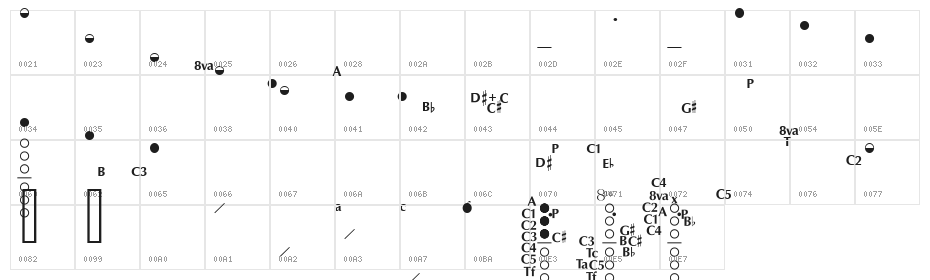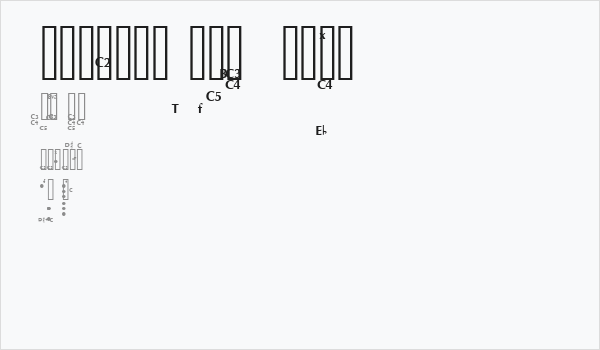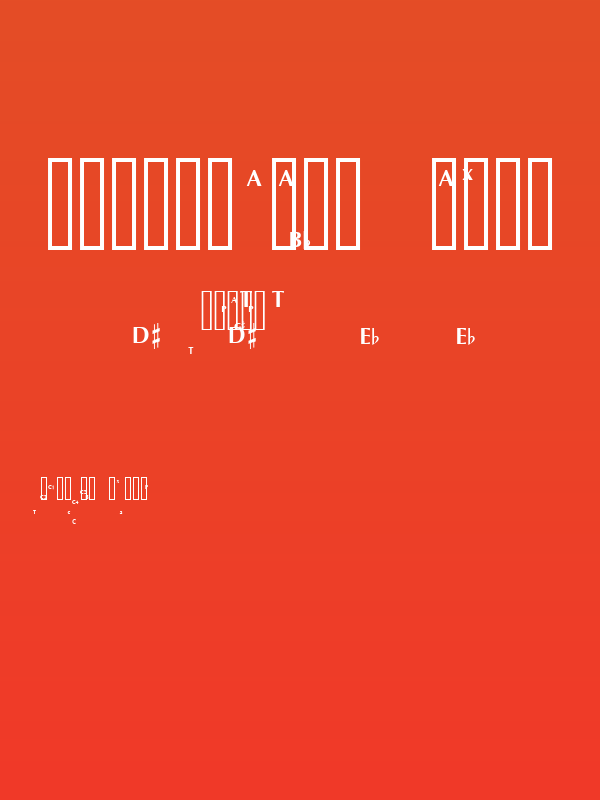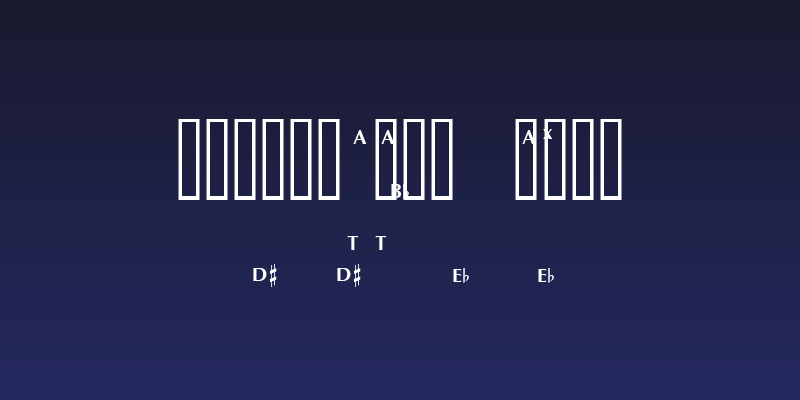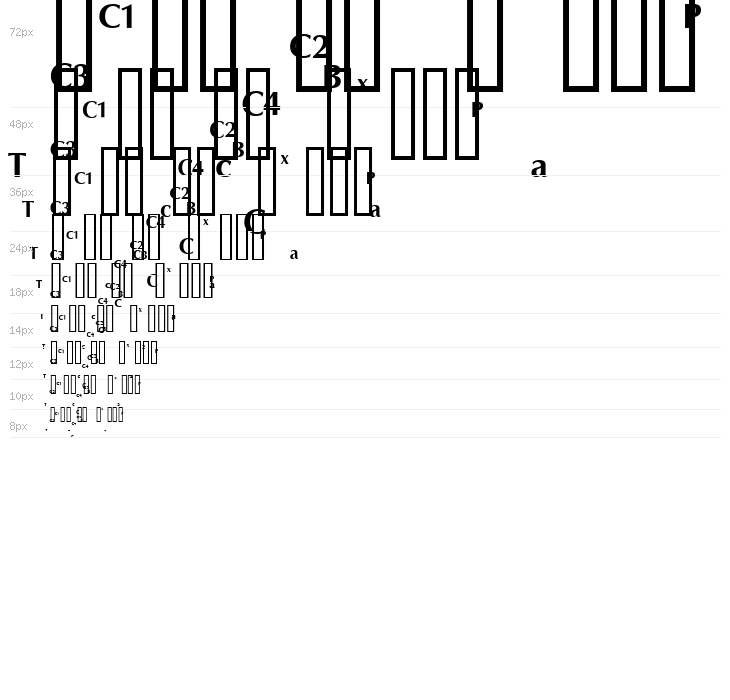
Woodwind Tablature SaxEuro Font
Woodwind Tablature SaxEuro Description
This image contains a woodwind tablature chart with musical notation symbols, fingerings, and text, rather than a traditional font set. The elements are diagrammatic and not intended for typographic use.